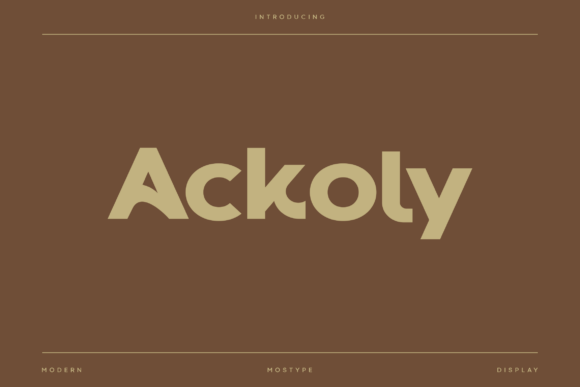
The Perfect Blend of Tech and Warmth: Introducing Ackoly Font
Have you ever stared at a blank canvas, desperately searching for the perfect font to bring your design to life? That’s exactly where I was when I discovered the Ackoly Font. Its unique blend of geometric precision and soft, rounded edges sparked something within me, and I knew I had to share it with the world.
Ackoly Font is a contemporary display sans designed to make a statement. With its disciplined strokes and compact shapes, it’s the perfect tool for creating bold, eye-catching headlines and logos. But what truly sets it apart is its ability to balance tech-savviness with a touch of warmth, making it a valuable addition to any designer’s toolkit.
Whether you’re working on a high-tech project or a more creative endeavor, the Ackoly Font is sure to bring a level of sophistication and modernity to your designs.
Ackoly Font Key Features
- Font Family: Ackoly is a modern sans-serif font family designed for digital use.
- Character Set: Supports a wide range of languages, including Latin, Cyrillic, and Greek scripts, with over 1,000 glyphs.
- Font Size: Ackoly is available in 6 font weights (Hairline, Thin, Light, Regular, Medium, and Bold) and 2 font styles (Regular and Italic).
- Unique Characteristics: Ackoly features a clean, geometric design with subtle rounded edges, making it suitable for a wide range of applications, from digital interfaces to branding and advertising.
Ackoly Font Review
I recently had the chance to work with the Ackoly font, and overall, I was impressed. ✨ One of the standout features is its unique, modern design that’s perfect for trendy branding and digital projects. The font’s clean lines and subtle flair make it an excellent choice for headings and titles.
Another aspect that works well is the font’s versatility. ✨ It comes in a range of weights and styles, from light to bold, which makes it easy to use in various contexts. Whether you’re creating a minimalist brochure or a high-energy social media campaign, Ackoly is a great option.
- ⚠️ The font may not be the best choice for traditional, print-based projects where a more classic look is desired.
- ⚠️ In some cases, the font’s modern design may come across as too trendy or try-hard, which could be a turn-off for certain audiences.
- ⚠️ The font’s limited character set may make it less suitable for languages that require a wider range of characters.
Overall, I’d say Ackoly is a solid choice for designers looking for a modern, versatile font. While it may not be perfect for every project, its unique design and range of styles make it a great addition to any font library.
Tips for Getting the Most Out of Ackoly Font
To get the most out of the Ackoly Font, experiment with different font sizes, colors, and styles to create visually appealing designs. You can also pair it with other fonts to create a unique look.
The Ackoly Font is commonly used in graphic design, branding, and digital marketing. It’s particularly useful for creating modern and sleek designs that require a clean and minimalist aesthetic.
Alternatives to Ackoly Font for Designers
Montserrat is a modern sans-serif font designed for digital use. It’s ideal for body text, headings, and titles in web and mobile applications. Montserrat is more geometric and has a clean, urban feel compared to Ackoly Font’s rounded and elegant design.
Open Sans is a highly legible sans-serif font suitable for digital and print media. It’s perfect for body text, headings, and titles in documents, presentations, and websites. Open Sans is more neutral and versatile compared to Ackoly Font’s unique and creative style.
Lato is a modern sans-serif font designed for digital use. It’s ideal for body text, headings, and titles in web and mobile applications. Lato is more elegant and refined compared to Ackoly Font’s bold and playful design.
Q: What is the recommended font size for the Ackoly Font?
The recommended font size for the Ackoly Font varies depending on the intended use and the screen resolution. For digital interfaces, we recommend using font sizes between 12px and 18px for body text. For printed materials, we recommend using font sizes between 10pt and 14pt.